To achieve stunning typographic designs in 2024, make use of our curated list of the top 10 free fonts available for download, specially chosen for graphic designers.
Typography is a crucial aspect of graphic design, playing a significant role in conveying the intended message and enhancing the visual appeal of any project. Luckily, designers have access to an array of free fonts that can elevate their designs.
After extensively exploring various free font platforms, we’ve assembled a compilation of the finest 10 fonts tailored for graphic designers to download in 2024. This assortment encompasses a diverse range of styles. As previously stated, all fonts we’ve handpicked are freely accessible, with designated options for both private and commercial usage.
10. Juliette – Free Handwritten Signature Font
Juliette is an exquisite handwritten signature font that exudes style, natural simplicity, and beauty. It’s a versatile choice, suitable for a range of applications including logos, branding, social media, feminine designs, and beyond. The inherent refined style of Juliette makes it the perfect fit for elegant design projects.
9. Roboto – Free Google Font
Christian Robertson designed Roboto, incorporating two defining features. On one side, Roboto stands out with its geometric shapes. On the other hand, it presents a welcoming and expansive appearance. With an extensive array of styles and complementary Italics, Roboto can be freely downloaded from Google Fonts. This font family is versatile and suitable for use in both print and screen design.
8. Projekt Blackbird – Free Sans Serif Font
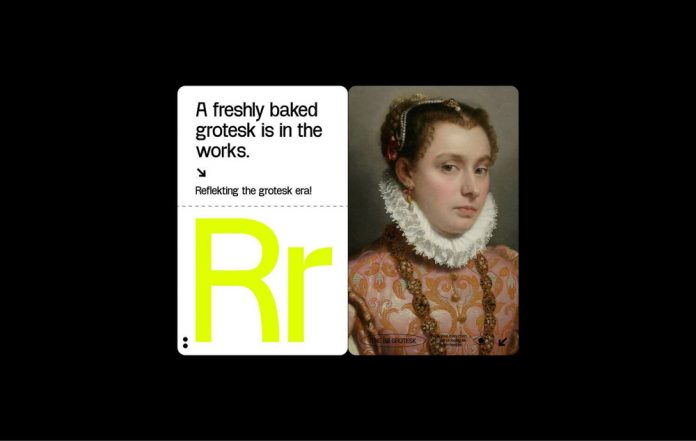
Crafted by Leonit Gashi, Projekt Blackbird is a sans-serif font available at no cost. This font excels in various applications, such as headlines, web design projects, posters, or body text, showcasing its versatility. Whether for personal or commercial purposes, Projekt Blackbird can be freely utilized.
7. Radicals – Bold Script Font
Radicals, a daring script font, showcases beautiful lines and seamless connections, complemented by playful tails and glyphs. Clearly influenced by classic vintage lettering, this typeface is ideal for logos, branding, packaging, headlines, retro designs, and beyond.
6. Nabi – Graceful Font
Nabi draws inspiration from chic and contemporary typography styles. With its minimalist sans serif design, this font exudes an elegant impression, making it perfect for a wide range of designs including quotes, product packaging, magazines, makeup, and more. Additionally, the font offers ligature features that allow for diverse visual effects.
5. Handler – Vintage Sans Serif Font
Handler is an exceptional vintage typeface that exudes nostalgic charm! This retro-inspired font offers a versatile range of character options, including regular, stamp, and rough styles. Whether you choose to blend them seamlessly or use them individually, you can craft distinctive elements that captivate your projects or designs. Perfect for logos, branding, vintage apparel, packaging, and beyond—Handler is the epitome of versatility and is well-suited for a multitude of creative applications!
4. Margaret – Serif Font
The elegant Margaret Serif font, crafted by Kacper Janusiak and the K94 Studio team, exudes classic charm. Ideal for headlines, branding, and logotypes, this free serif font effortlessly adds a touch of sophistication to your projects. Explore the link below for comprehensive details on its features.
3. Vollkorn – Free Google Font
Vollkorn is a serif font family that draws influence from timeless design aesthetics. Friedrich Althausen’s inaugural foray into type design resulted in its regular style, initially published under a Creative-Commons-License in 2005. This typeface rapidly gained traction, accumulating thousands of downloads within a mere two years. Presently, Vollkorn can be freely accessed as a Google Font, presenting four weights (Regular, Semi-Bold, Bold, and Black) along with corresponding Italics for each weight. Characterized by its bold and substantial serifs, Vollkorn seamlessly caters to both print and web design ventures.
2. Singo – Sans Display Font
Singo, a strikingly bold display font, captivates with its sharp edges and graceful curves. Optimal for making a significant statement, this sans serif font family offers a range of possibilities. With a variety of 5 font styles, 10 font families, and an extensive collection of over 2,000 glyphs, Singo provides a versatile toolkit. The essence of Singo, reminiscent of its Indonesian origin, mirrors strength, boldness, and gallantry in its design.
1. Big John Pro – The Best Free Fonts
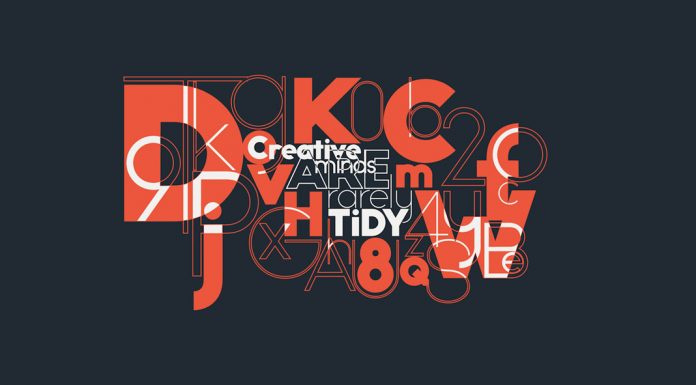
For several years now, Big John PRO stands out as one of our cherished free fonts. Created by Ion Lucin, it represents an enhanced version of the Big John and Slim Joe fonts, available at this link. The Pro edition offers bold, light, and regular font styles suitable for both personal and commercial use—all without any cost! To access the download, simply click the link provided in Mr. Lucin’s Instagram account’s bio section.